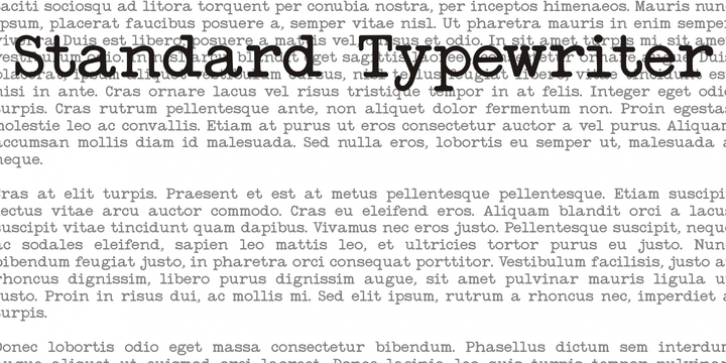
StandardTypewriter is a typewriter font published by Intellecta Design.
A typewriter font design, great for mimicking the effect of type writing older machines.